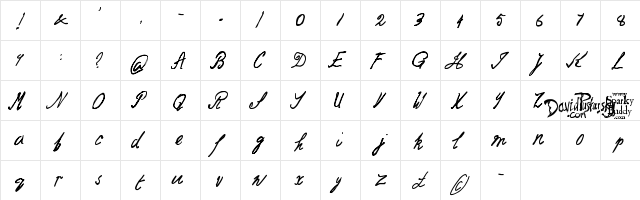
Jack the Ripper Dear Boss Regular
| Foundry | Sparky Buddy Productions |
| Designer | David Pustansky |
Design Context for Jack the Ripper Dear Boss Typeface
Jack the Ripper Dear Boss is a composed and adaptable typeface that performs quietly and consistently across a wide range of design contexts.